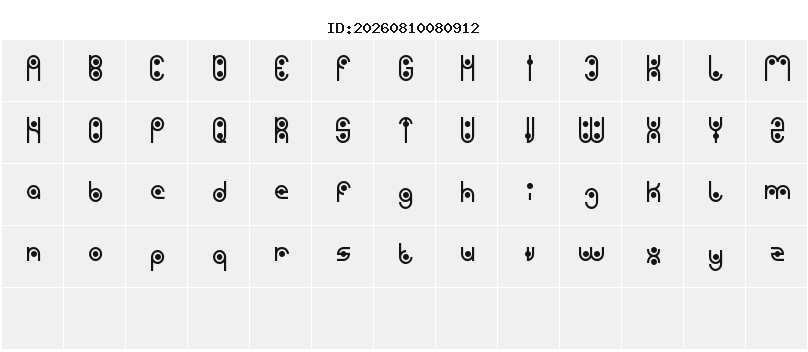
PHYTOPLANKTON Preview
• Font Name: PHYTOPLANKTON
• Full Font Name: PHYTOPLANKTON
About PHYTOPLANKTON.ttf
PHYTOPLANKTON.ttf is a modern, elegant sans-serif font designed for ultimate readability and visual harmony. Perfect for branding, headlines, web design, and print materials.